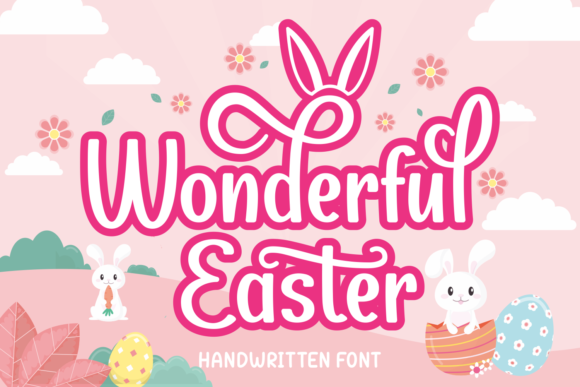
Wonderful Easter is a chic and playful display font. It is suitable for any branding project like logos, t-shirt printing, sport designs, and more. It will look outstanding in a wide range of contexts. This font is PUA encoded which means you can access all of the glyphs and swashes with ease!
Wonderful Easter Font